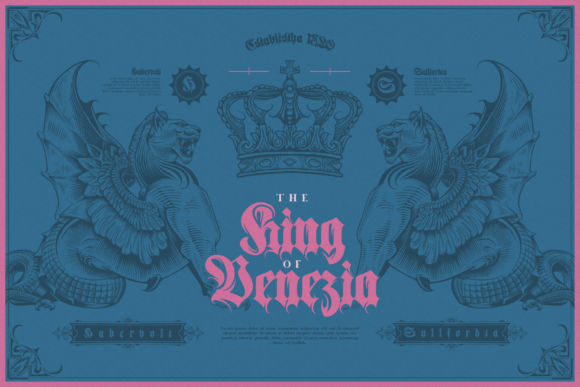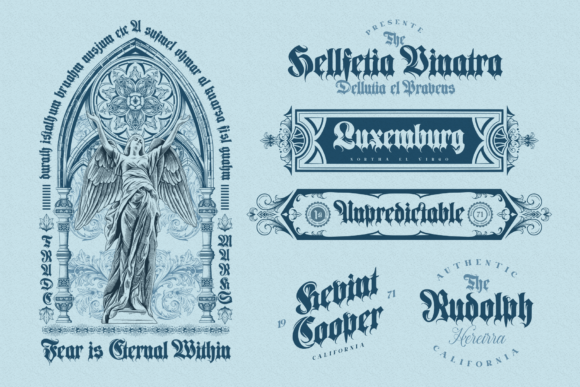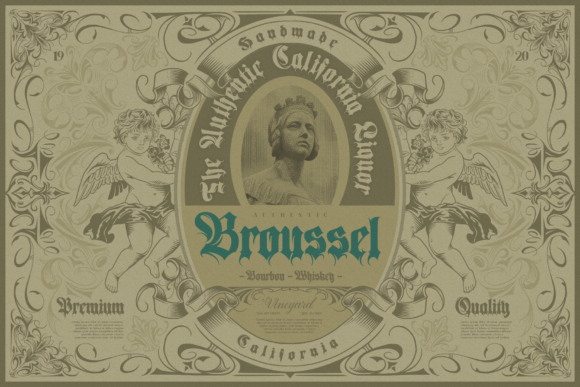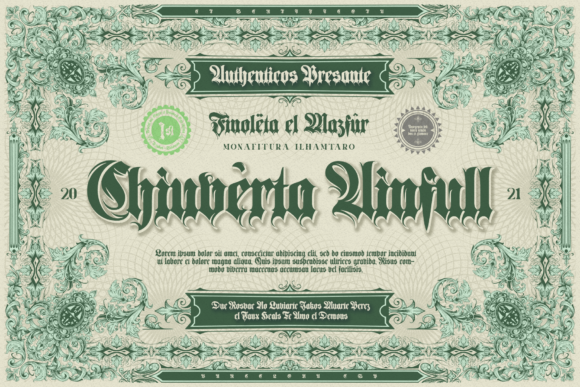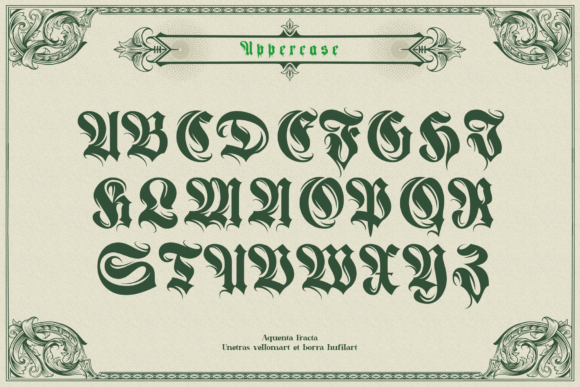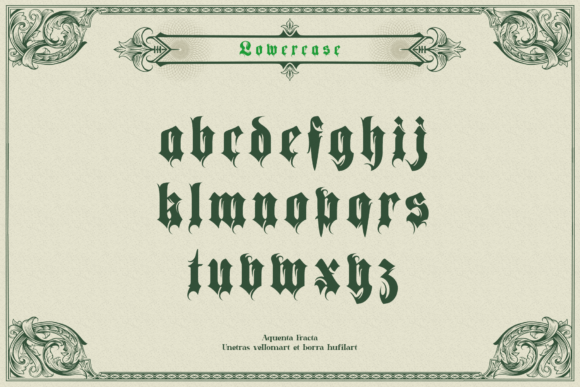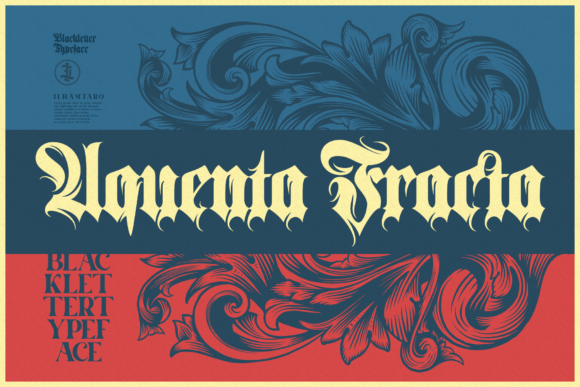
Aquenta Fracta Font: Elevate Your Crafting Ideas with Confidence and Charm
Are you a designer or crafter looking for a unique and assertive font to elevate your projects? Look no further than the Aquenta Fracta Font. This cool blackletter font is perfect for delivering any message with confidence, authenticity, and charm. In this article, we’ll dive into the features and benefits of the Aquenta Fracta Font and explore how it can take your crafting ideas to the next level.
What is Aquenta Fracta Font?
Aquenta Fracta Font is a modern blackletter font that’s both stylish and versatile. Its unique design combines traditional blackletter elements with a fresh, contemporary twist, making it perfect for a wide range of applications. Whether you’re creating cards, branding materials, labels, or any other type of project, Aquenta Fracta Font is sure to make a statement.
Key Features of Aquenta Fracta Font
- Cool and Assertive: Aquenta Fracta Font has a bold, confident look that’s perfect for making a statement. Its assertive design ensures that your message will be heard loud and clear.
- Distinct Blackletter Style: The font’s blackletter style gives it a unique and distinctive look that’s sure to stand out from the crowd.
- Versatile: Aquenta Fracta Font is incredibly versatile and can be used for a wide range of projects, from cards and branding to labels and more.
- Elegant and Charming: Despite its bold design, Aquenta Fracta Font also has an elegant and charming side, making it perfect for projects that require a touch of sophistication.
Benefits of Using Aquenta Fracta Font
- Adds Confidence and Authenticity: Aquenta Fracta Font’s bold design ensures that your message will be delivered with confidence and authenticity.
- Elevates Crafting Ideas: Whether you’re creating cards, branding materials, or labels, Aquenta Fracta Font is sure to elevate your crafting ideas and take them to the next level.
- Perfect for a Wide Range of Projects: The font’s versatility makes it perfect for a wide range of projects, from formal to informal, and everything in between.
- Easy to Read: Despite its bold design, Aquenta Fracta Font is easy to read, making it perfect for projects that require a clear and concise message.
- Pair with Other Fonts: Aquenta Fracta Font pairs well with other fonts, so feel free to experiment with different combinations to find the perfect look for your project.
- Use for Headings and Titles: The font’s bold design makes it perfect for headings and titles, where you want to make a statement.
- Add a Personal Touch: Aquenta Fracta Font is also great for adding a personal touch to your projects, such as handmade cards or craft labels.
| Font Name | Aquenta Fracta Font |
| Author | ilhamtaro |
In conclusion, Aquenta Fracta Font is a cool, assertive, and distinct blackletter font that’s perfect for delivering any message with confidence, authenticity, and charm. Its versatility, elegance, and charm make it perfect for a wide range of crafting ideas, from cards to branding, labels, and much more. Whether you’re a designer or crafter, Aquenta Fracta Font is sure to elevate your projects and take them to the next level.